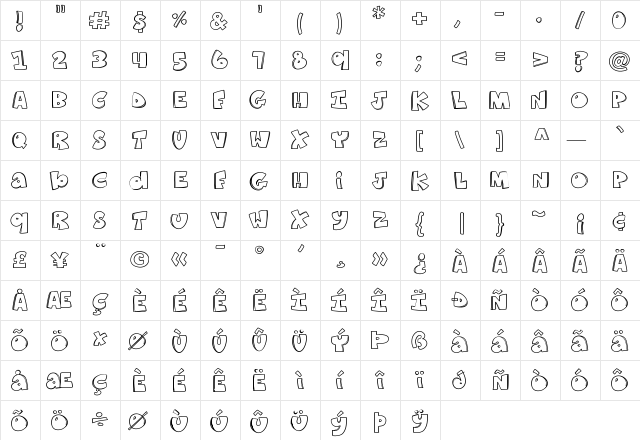
K26ComicKats Medium Free Font
K26ComicKats Medium
Design Context for K26ComicKats
K26ComicKats has an approachable, lighthearted character - its loose, expressive forms are well-suited to children's content, casual branding, and fun-first design.
Font Pairing: Pairs well with a rounded or humanist sans for body copy, maintaining the friendly tone without relying on K26ComicKats to carry extended reading.
Pro Tip: Use K26ComicKats at larger display sizes where its expressive character can land. Pair with a clean, simple sans for body copy to maintain readability.